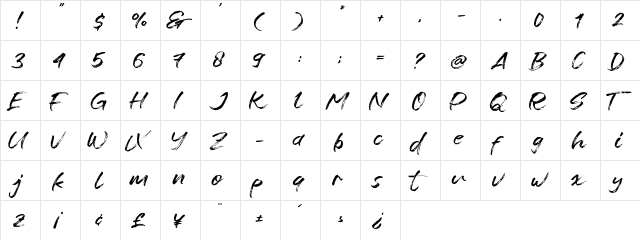
Fontrue Regular
Design Context for Fontrue Typeface
Fontrue is a composed and adaptable typeface that performs quietly and consistently across a wide range of design contexts.